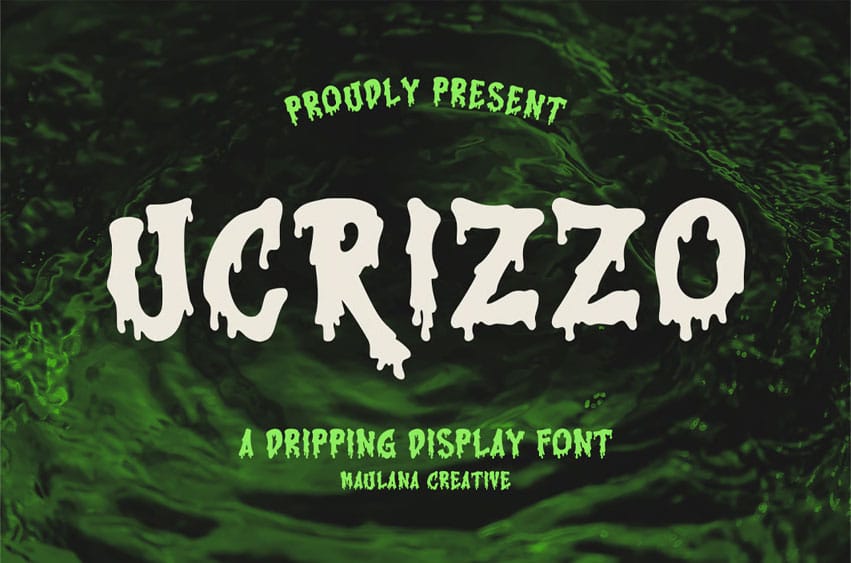
Ucrizzo Font is a brush horror style display font. Ucrizzo font supports more than 100+. This font is good for logo design, Social media, Movie Titles, book titles, short text, even long text letters, and is good for your secondary text font with sans or serif.